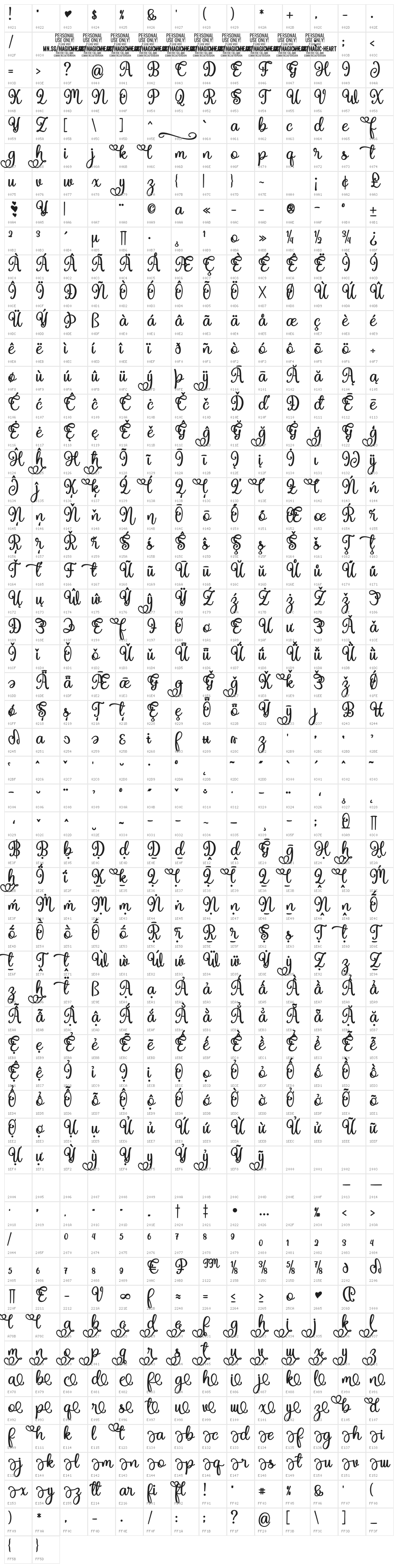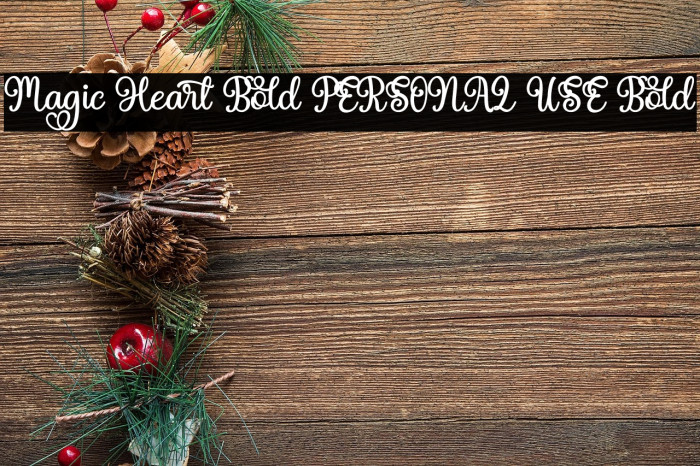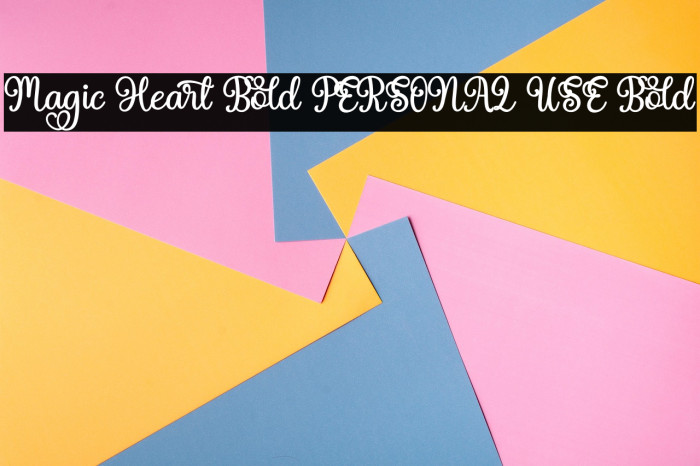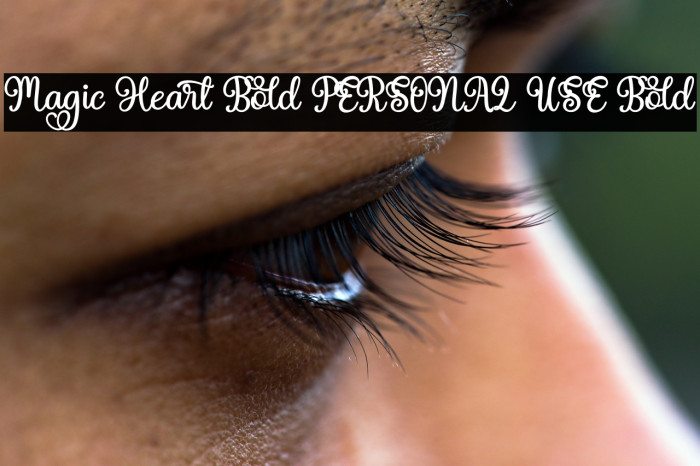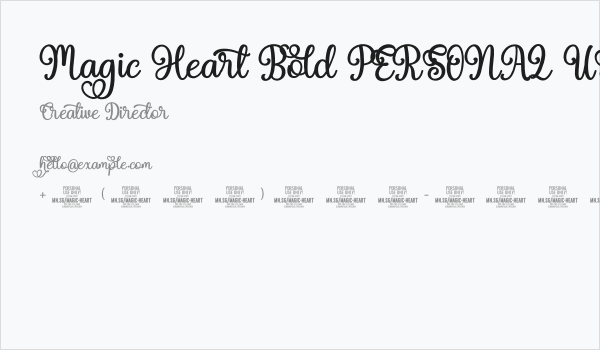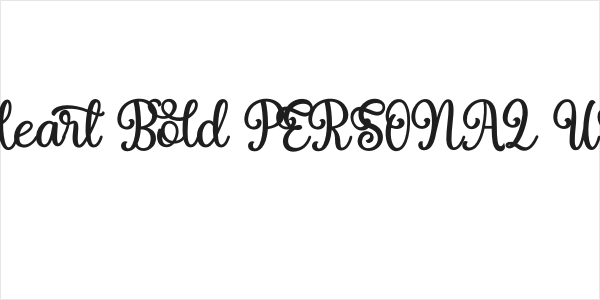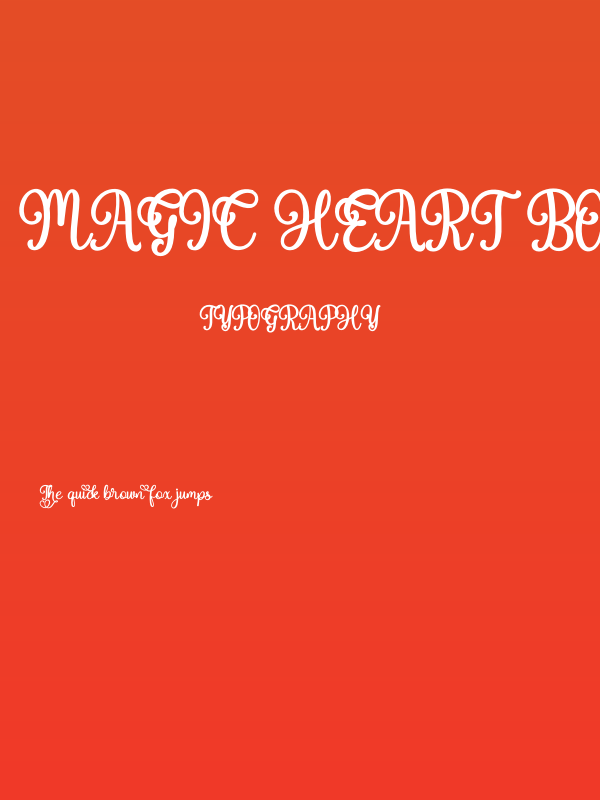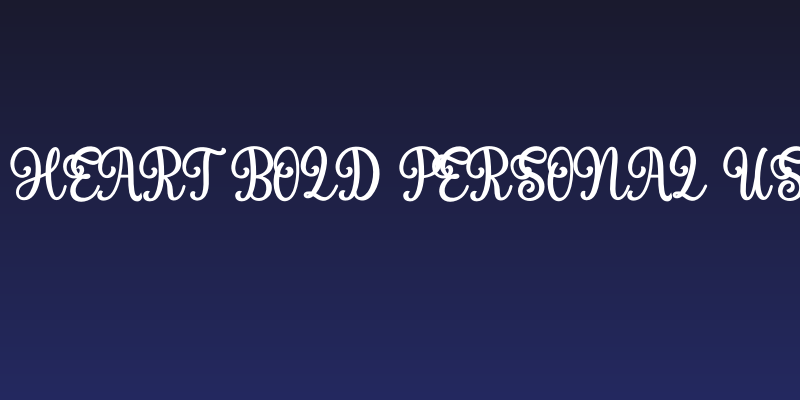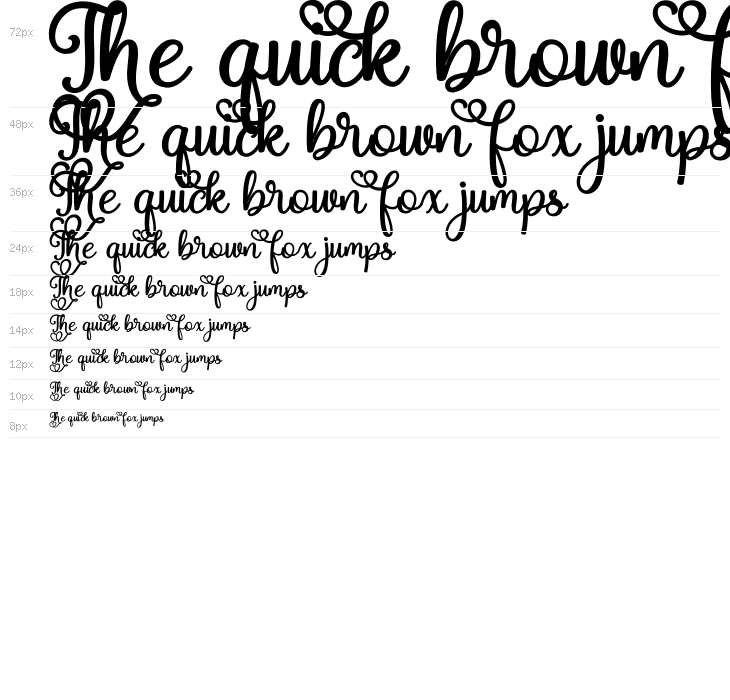
Magic Heart Bold PERSONAL USE Bold Font
Magic Heart Bold PERSONAL USE Bold Description
This font features a whimsical and playful script style with bold, flowing strokes. The characters are interconnected, creating a continuous and fluid appearance. The uppercase letters are ornate, with loops and swirls that add a decorative touch. The lowercase letters maintain the same playful style, with some characters featuring unique flourishes. The numbers and special characters are consistent with the overall design, incorporating similar loops and curves. This font exudes a sense of fun and creativity, making it ideal for projects that require a lively and engaging typeface.
Use CaseLogos, Headlines, Invitations
Proposed ProjectsIdeal for greeting cards, invitations, logos, and playful branding projects.